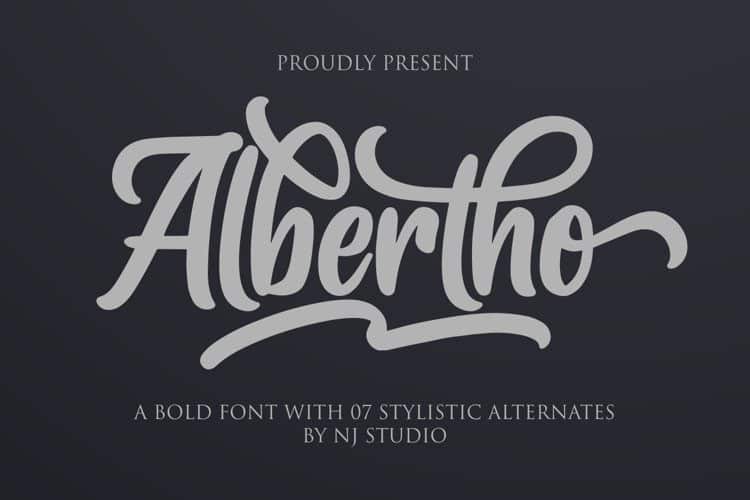
Albertho Script Font
Albertho A Bold Fonts are font designs that are made for various vector designs, printing such as digital wedding invitations, blogs, online shops, social media, while printing can be used in the field of product clothing, accessories, bags, pins, logos, business cards, watermarks and many others …